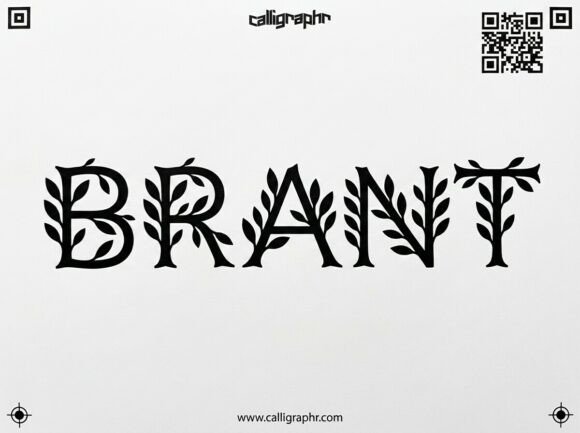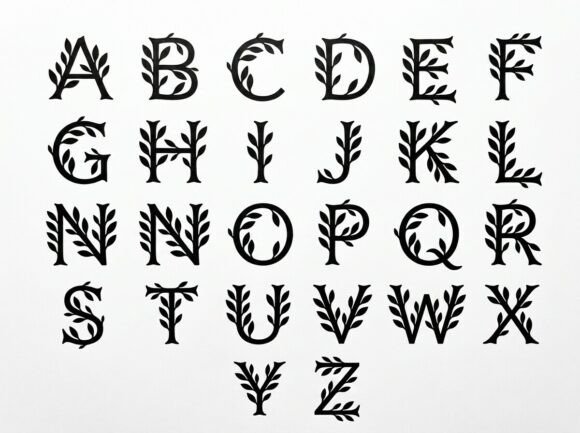
Introducing Brant Font: The Ultimate Avant-Garde Display Typeface
Are you tired of using the same old fonts that blend in with the crowd? Look no further than Brant Font, an avant-garde decorative display typeface that’s engineered to be the focal point of any composition. With its commanding visual personality and unique artistic flourishes, this font is perfect for creators who refuse to blend in.
A Font that Makes a Statement
Brant Font is characterized by its strong, artistic soul and high-end, polished finish. This makes it suitable for a wide range of applications, from luxury packaging to experimental editorial layouts. Whether you’re a designer, craftsperson, or simply someone who appreciates great typography, Brant Font is sure to make a statement.
Ideal for High-Impact Designs
So, what can you use Brant Font for? The possibilities are endless, but here are some ideas to get you started:
- High-impact headlines: Make a bold statement with your headlines using Brant Font’s unique and eye-catching letterforms.
- Signature logos & branding: Create a lasting impression with your brand’s identity using this distinctive typeface.
- Conceptual packaging: Add a touch of luxury and sophistication to your packaging designs with Brant Font.
- Poster & social media design: Stand out from the crowd with eye-catching posters and social media graphics featuring Brant Font.
A Note on Font Style
Please note that Brant Font is an all-caps (uppercase only) display typeface. By omitting lowercase characters, the designer has focused entirely on the intricate craftsmanship of every individual letter, ensuring each one acts as a standalone work of art.
Why Choose Brant Font?
So, why should you choose Brant Font over other typefaces? Here are just a few reasons:
- Unique and eye-catching: Brant Font’s avant-garde design ensures that your designs will stand out from the crowd.
- High-end and polished: This font’s sophisticated finish makes it suitable for luxury brands and high-end designs.
- Versatile: Brant Font can be used for a wide range of applications, from packaging to editorial layouts.
If you’re looking for a font that will make a statement and set your designs apart, look no further than Brant Font. With its unique artistic flourishes, commanding visual personality, and high-end finish, this avant-garde display typeface is sure to be the focal point of any composition.